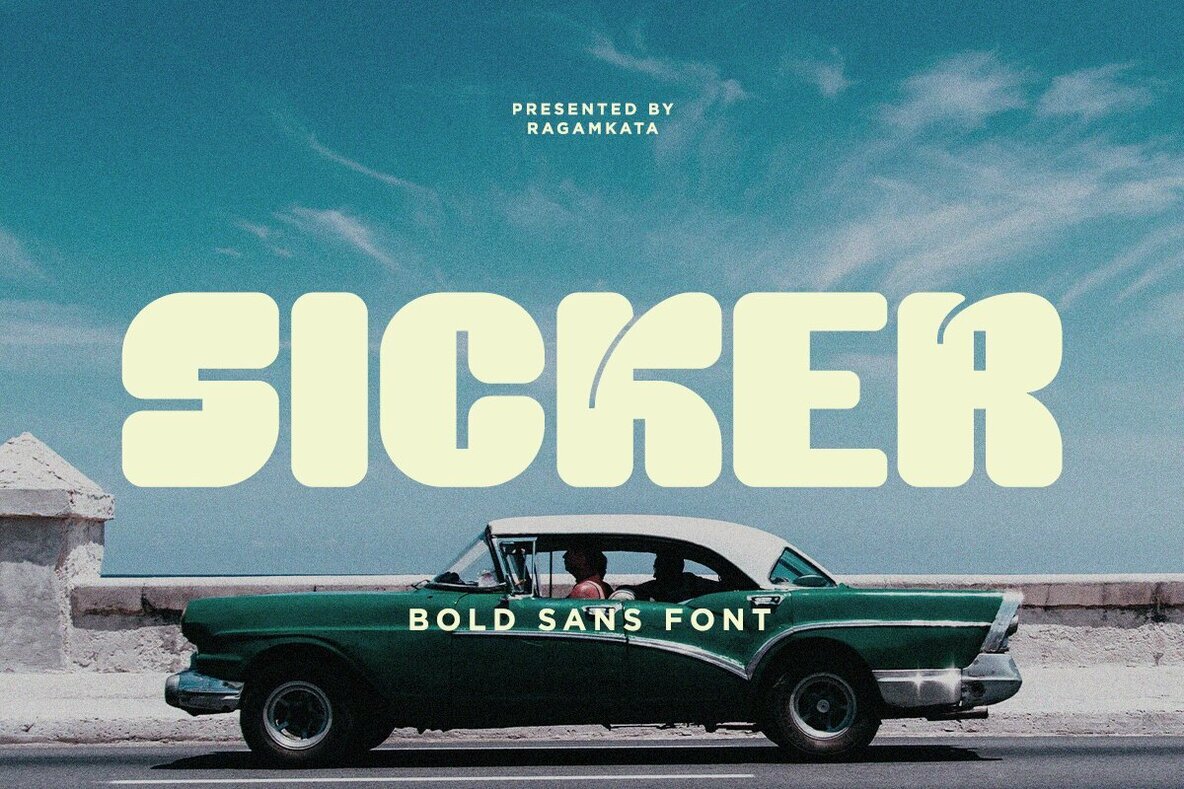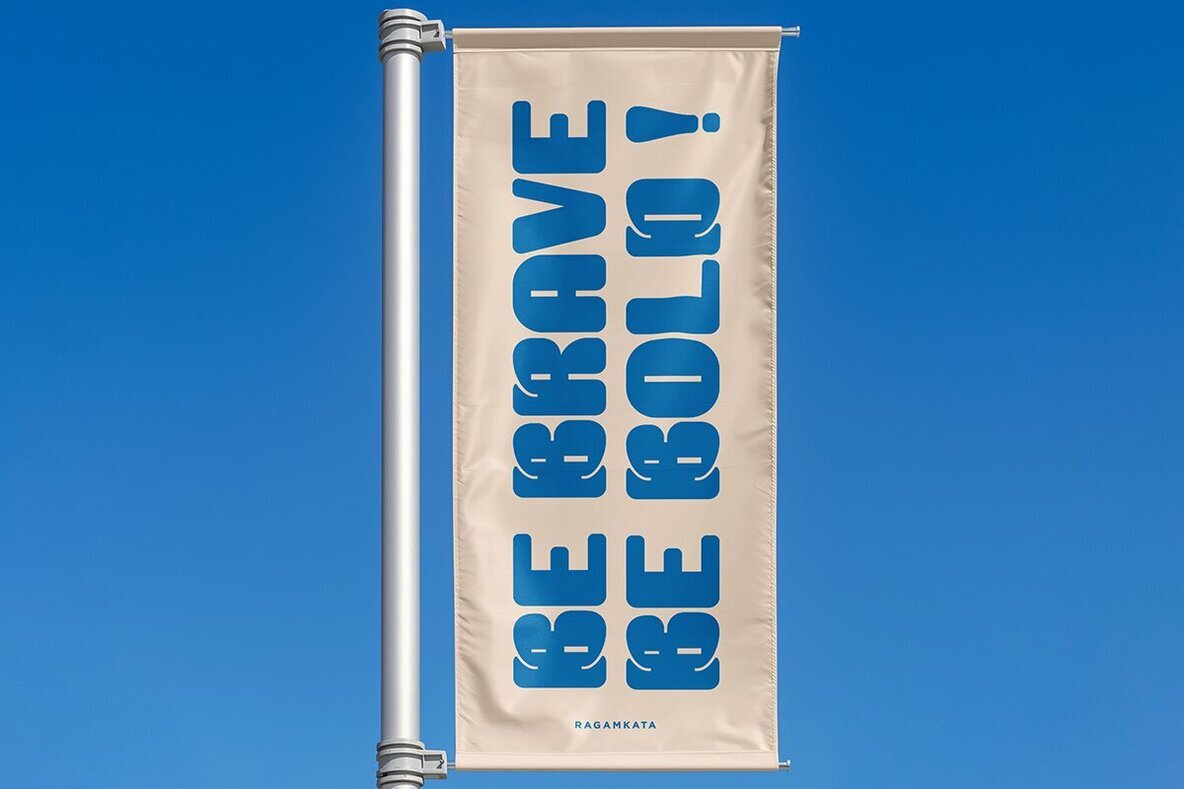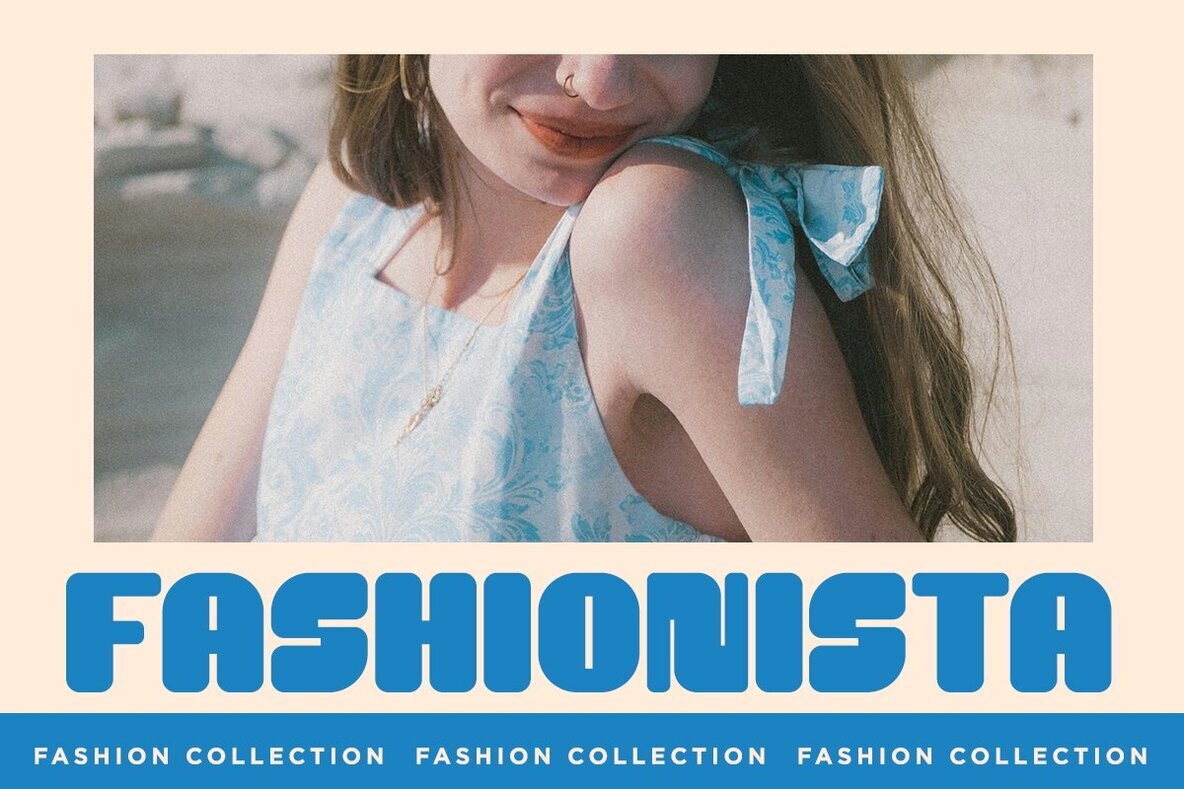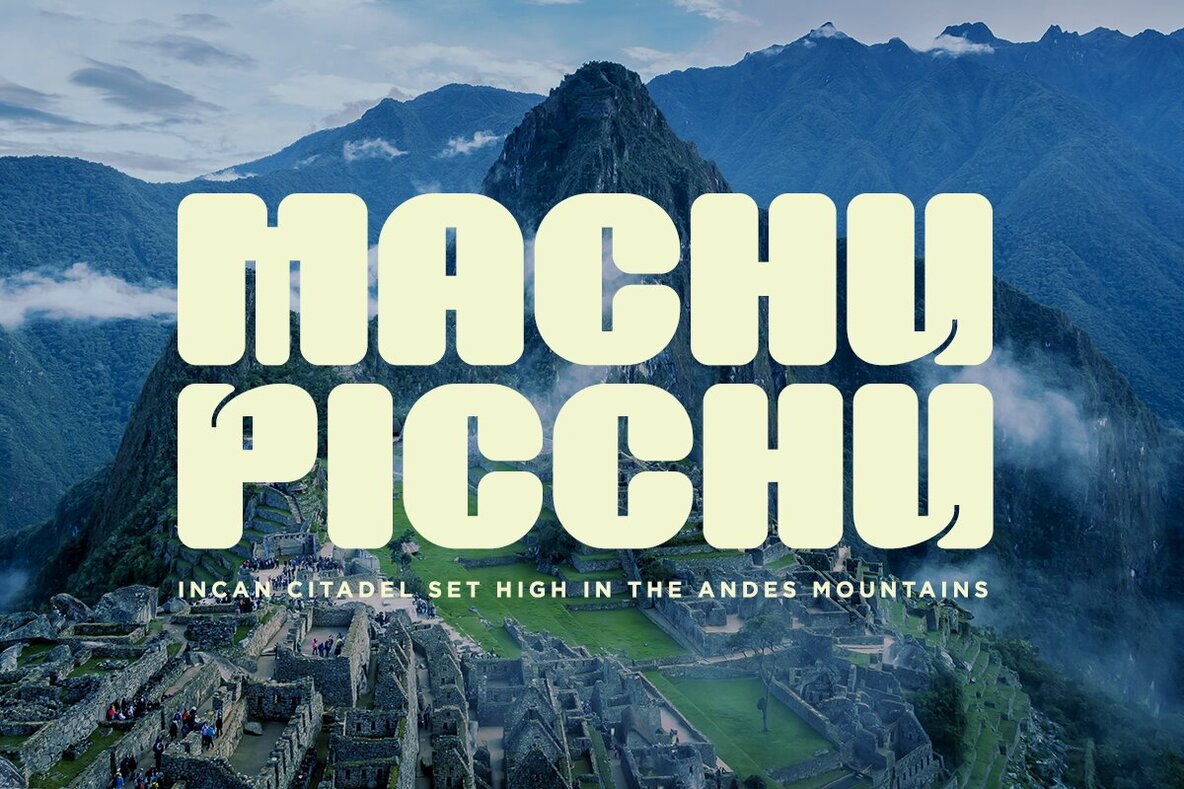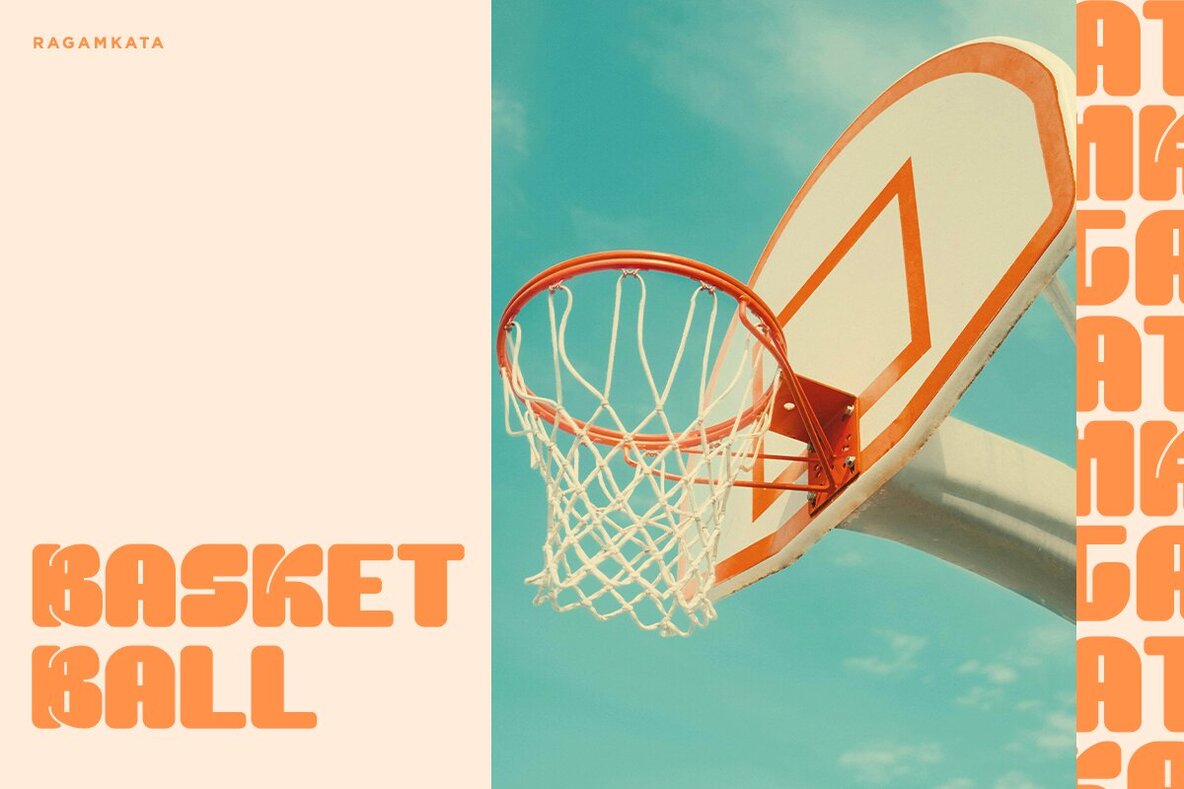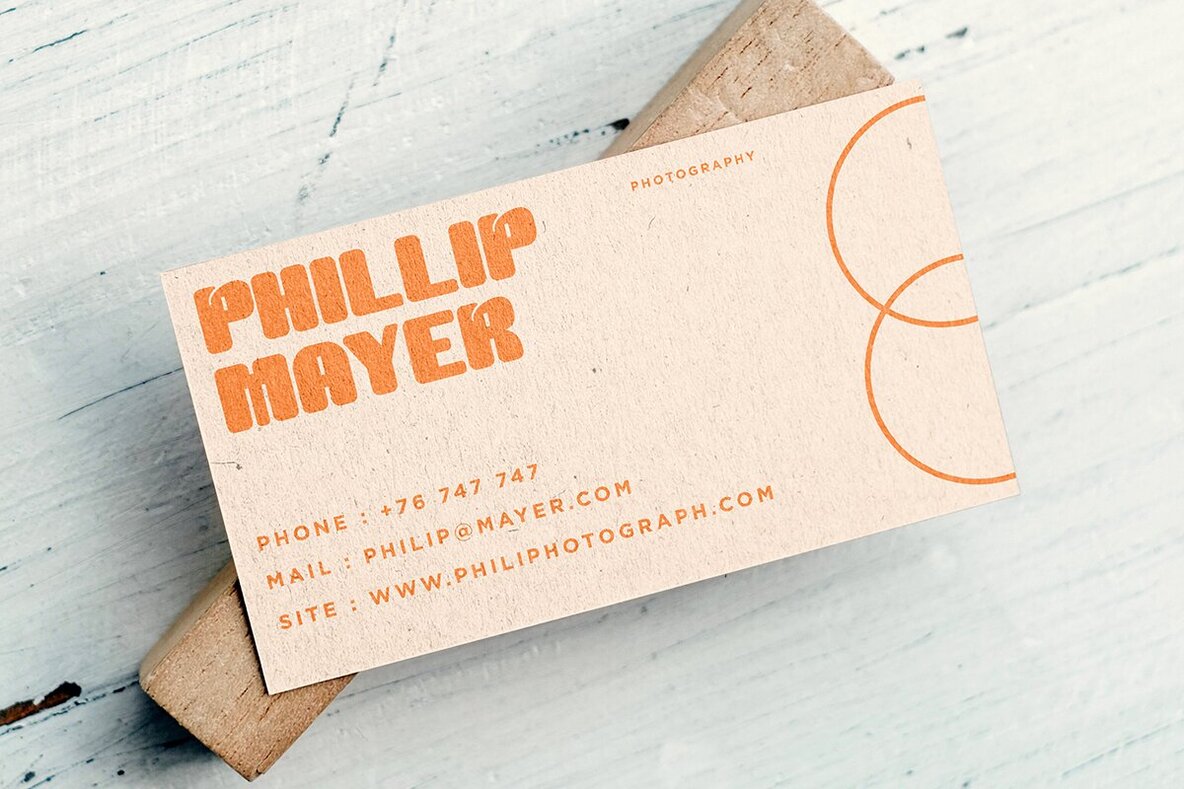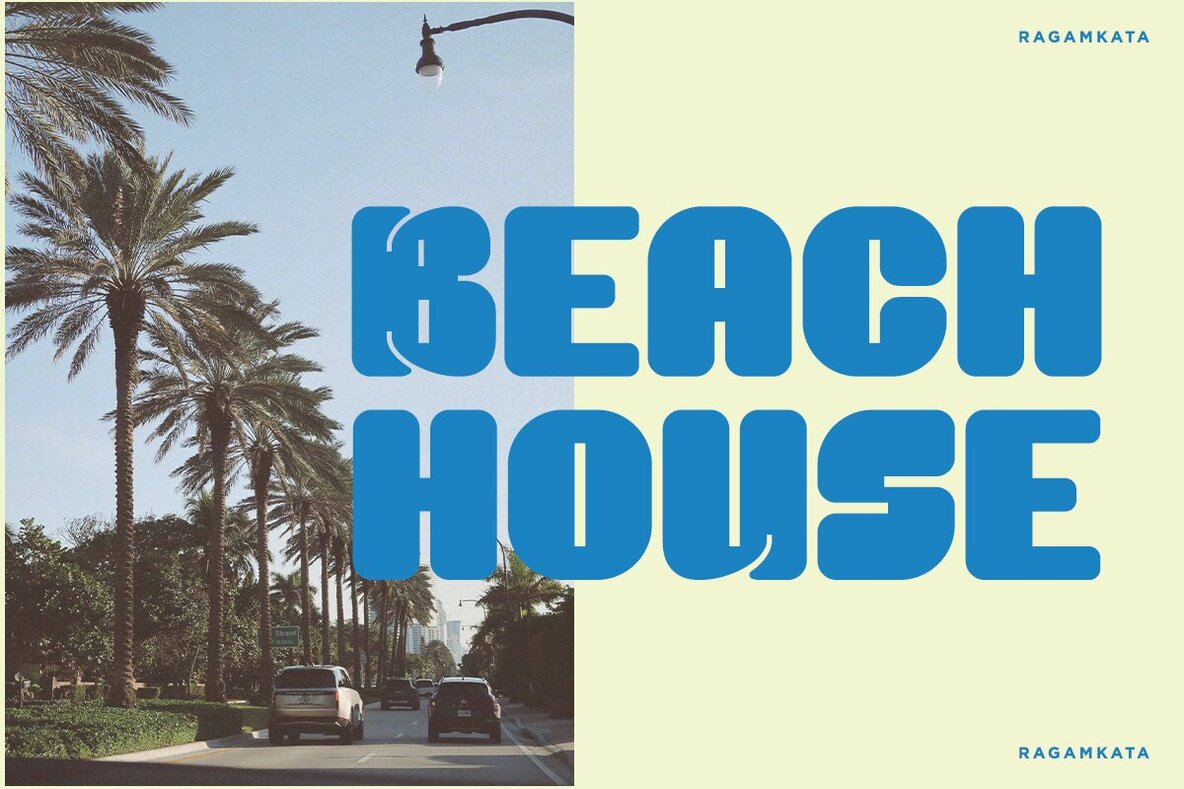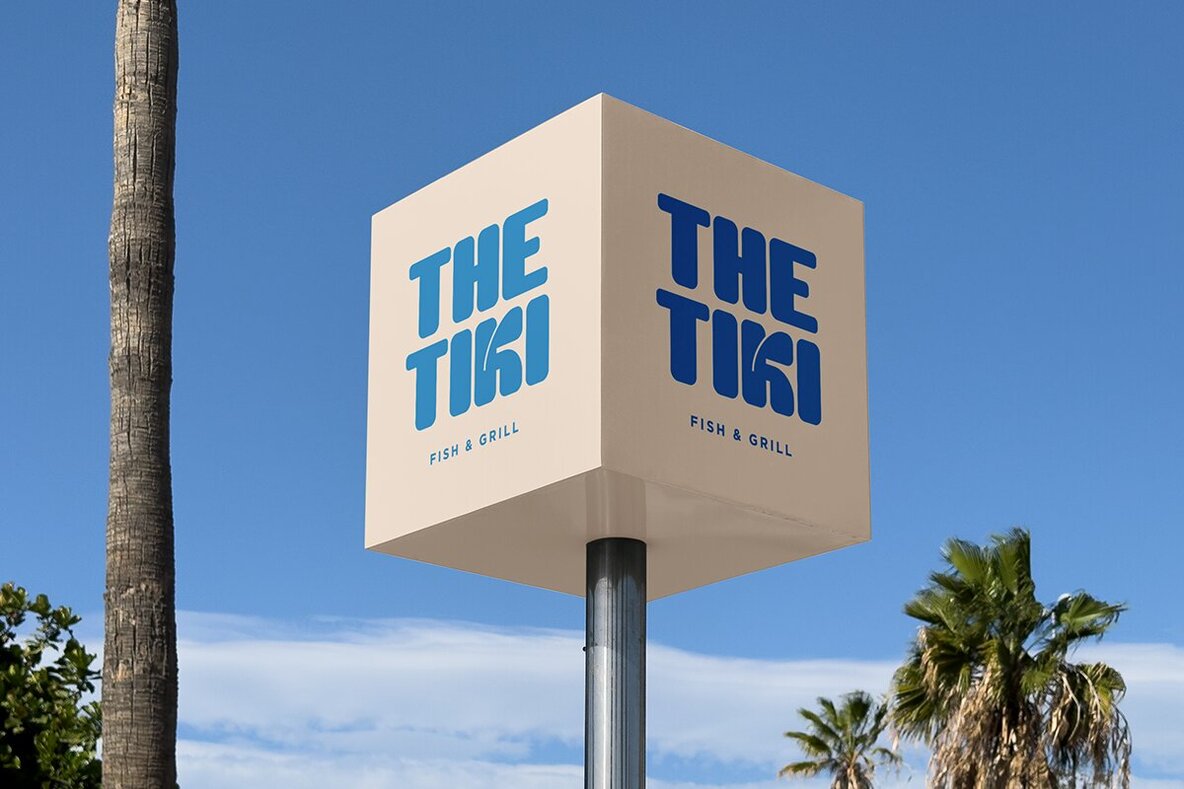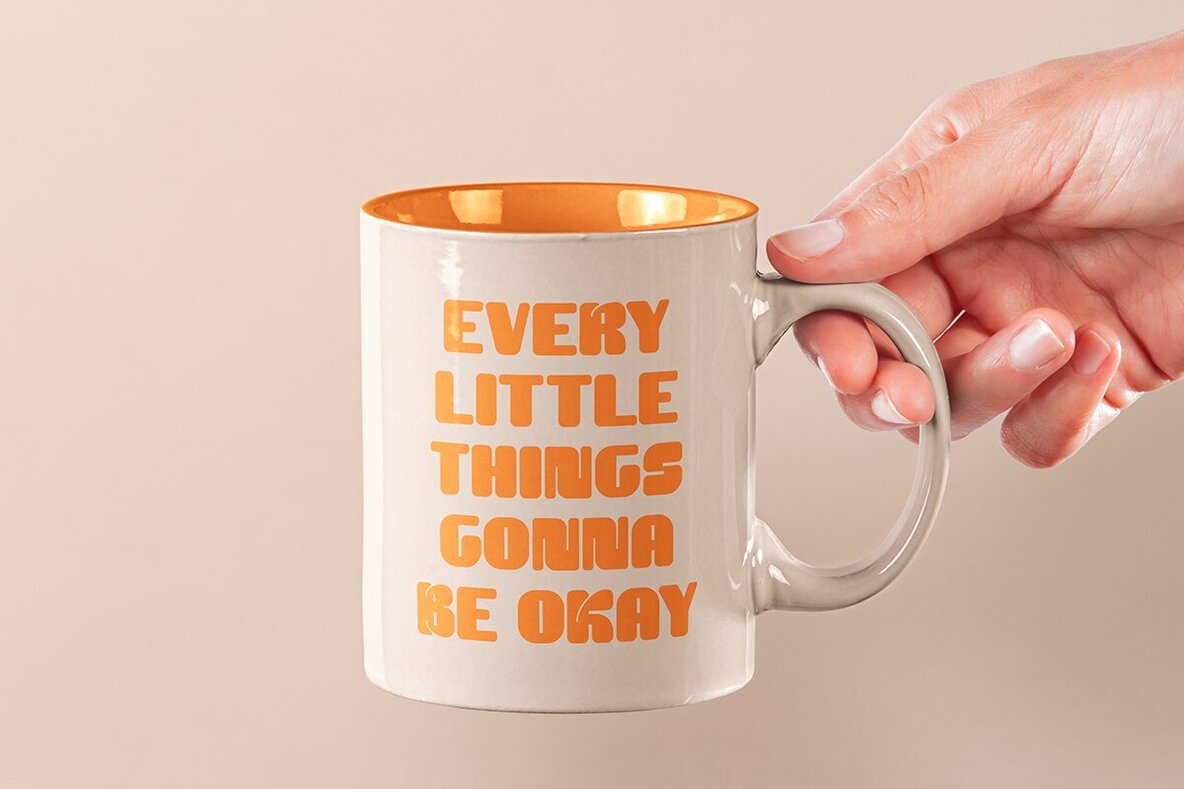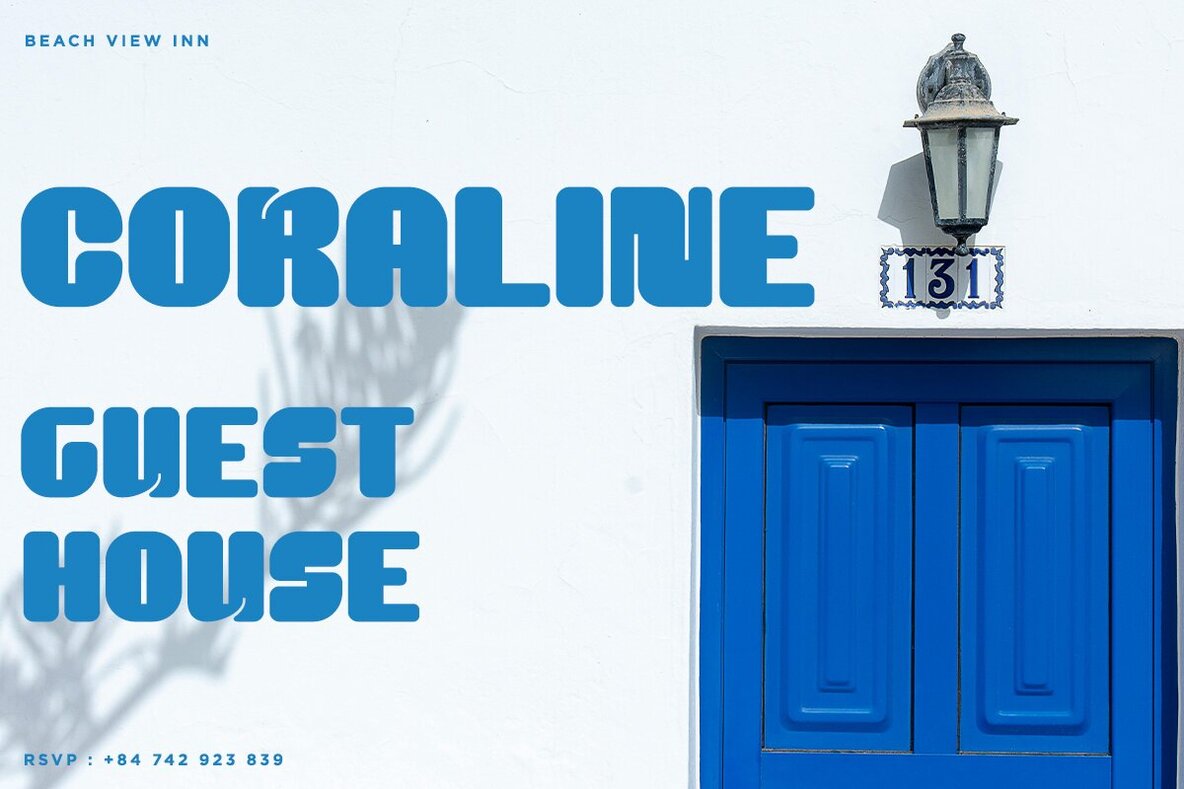
Sicker Font
Sicker
Sicker is a bold sans serif font meticulously crafted to enhance brand identity and appeal directly to your audience. The typeface's details are meticulously designed to offer precision in every character. Perfectly structured for corporate applications, Sicker seamlessly adapts to various projects, from branding and logos to headlines, posters, and digital advertisements.Sicker: Bold Sans for Distinctive Brand Identity